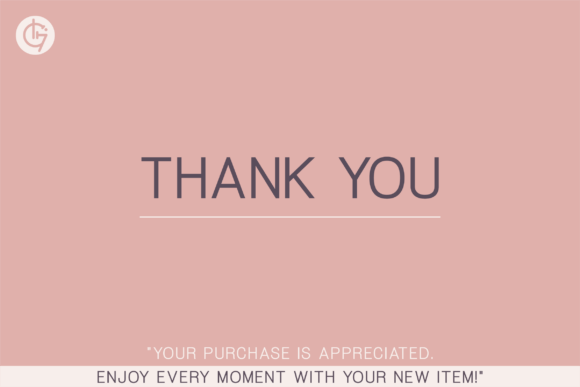
Introducing Desirable – A Modern Sans Serif Typeface
In the world of design, typography plays a crucial role in conveying messages, expressing ideas, and creating lasting impressions. For modern designers, finding the perfect font that embodies strength, authority, and professionalism can be a daunting task. However, with the introduction of Desirable, a bold, all-caps sans serif typeface, designers can now elevate their projects with a font that exudes confidence and impact.
Clean Lines and Minimalist Aesthetic
Desirable boasts a clean and minimalist aesthetic, characterized by its sharp, crisp edges and strong, geometric structure. This modern sans serif typeface is designed to make a statement, perfect for projects that require a sense of professionalism and authority. The font’s bold lines and all-caps design ensure maximum impact, making it ideal for headlines, posters, and anywhere you need your message to stand out.
Versatility and Readability
One of the standout features of Desirable is its versatility. The font’s strong, geometric structure ensures that it can be used across various mediums, from digital interfaces to high-end branding. Additionally, the all-caps design emphasizes clarity and readability, making it perfect for both large-scale headlines and smaller text blocks. Whether you’re designing a logo, website, or print material, Desirable provides a confident and professional look that is sure to leave a lasting impression.
Key Features of Desirable
- All-caps design for maximum impact and emphasis on clarity and readability
- Modern, minimalist style with a focus on readability and clean lines
- Bold, clean lines for a confident and professional look
- Ideal for branding, logos, packaging, and digital design
- Perfect for both large-scale headlines and smaller text blocks
Who is Desirable for?
Desirable is perfect for brands, agencies, and designers who want to make a statement with their typography. Whether you’re working on a high-end branding project, designing a website, or creating print materials, Desirable provides a versatile and professional solution. The font’s bold and confident look makes it ideal for:
- Branding and logos: Create a lasting impression with a strong and authoritative font
- Digital design: Use Desirable for websites, social media graphics, and digital interfaces
- Print materials: Elevate your print designs with a confident and professional font
| Font Name | Desirable Font |
| Author | Goliatte Studio |
In conclusion, Desirable is a modern sans serif typeface that embodies strength, authority, and professionalism. With its clean lines, minimalist aesthetic, and bold, all-caps design, Desirable is perfect for designers who want to make a statement with their typography. Whether you’re working on a branding project, designing a website, or creating print materials, Desirable provides a versatile and professional solution. Discover the power of Desirable and elevate your designs to the next level.